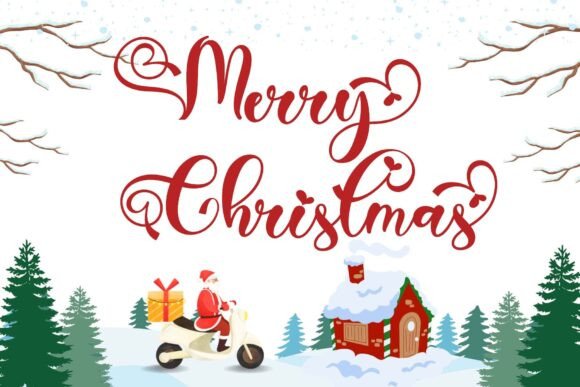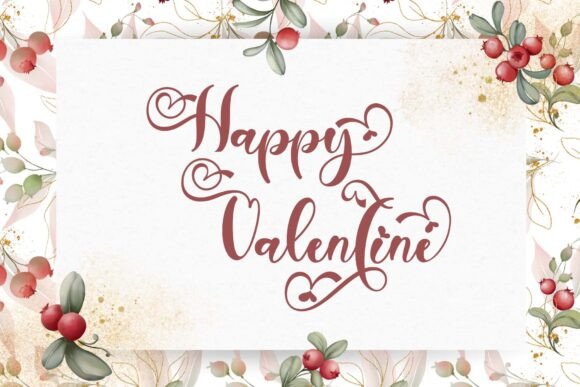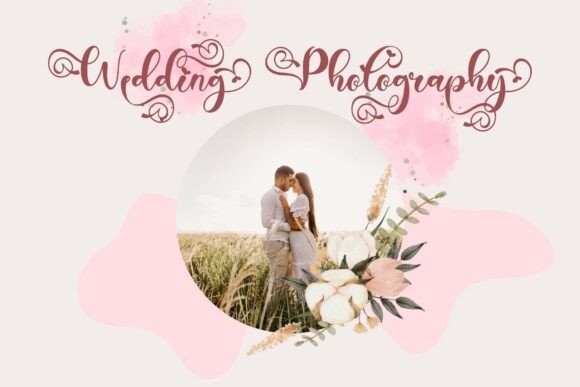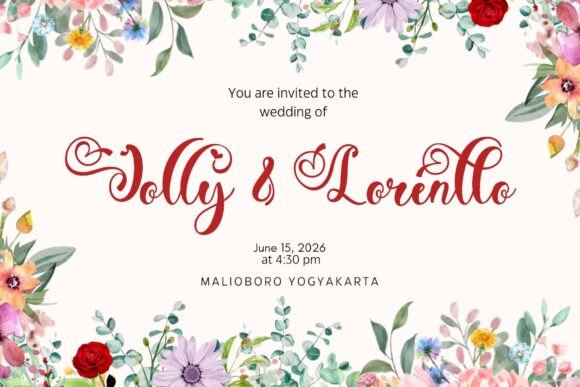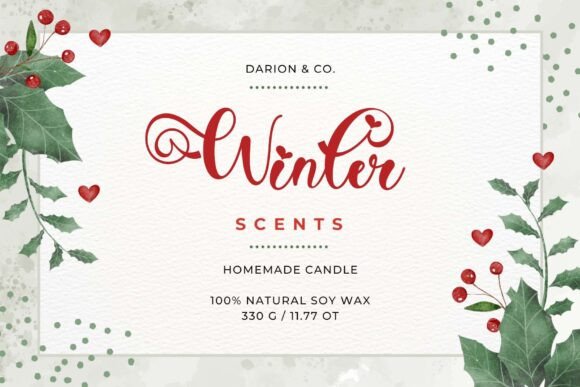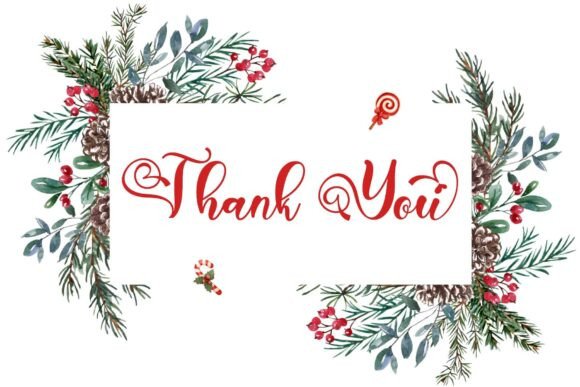
Introduction to Christmas Aesthetic Font Font
Fonts play a crucial role in design, and the Christmas Aesthetic Font font is a typeface that brings both character and versatility to any project. Whether you’re working on a branding project, a website, or a print design, the Christmas Aesthetic Font font offers a unique style that can elevate your work.
“Christmas Aesthetic” is a very beautiful handwritten font.
It comes with capital letters, lowercase letters, numbers, punctuation, ligatures, multilingual support, swashes, alternates, and more It is perfect for use on Christmas, weddings, parties, Valentine’s, invitations, photography, and more.
Key Features of Christmas Aesthetic Font Font
Why Choose Christmas Aesthetic Font Font?
The Christmas Aesthetic Font font is more than just a typeface – it’s a design tool that helps you communicate your message with style and clarity. Its unique character set and versatile design make it suitable for a wide range of applications, from elegant invitations to bold headlines.
With its carefully crafted letterforms and balanced proportions, the Christmas Aesthetic Font font ensures readability and visual appeal across all mediums.
What makes Christmas Aesthetic Font font special?
The Christmas Aesthetic Font font stands out with its unique design, exceptional readability, and versatility across various design applications.